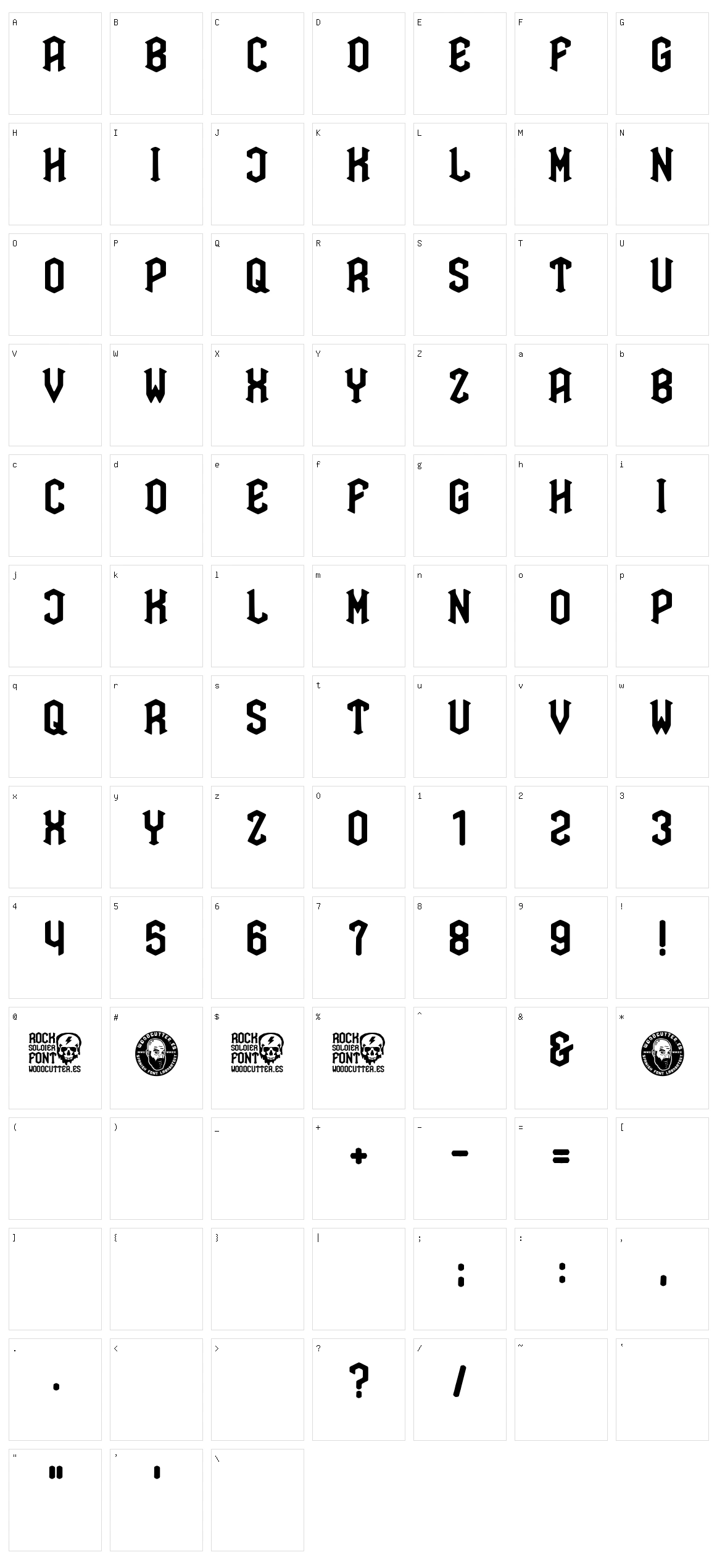
The free font Rock Soldier is carefully designed by Woodcutter, showcasing a thoughtful balance of creativity and usability and belongs to the Gothic font family. When you download the ZIP file, it contains only 61.17 KB of font files, making it lightweight and quick to download. Please review the license details below to understand permitted usage and distribution rights. If license information is not available, we recommend using this font for personal projects only or contacting the author directly for commercial usage permissions.